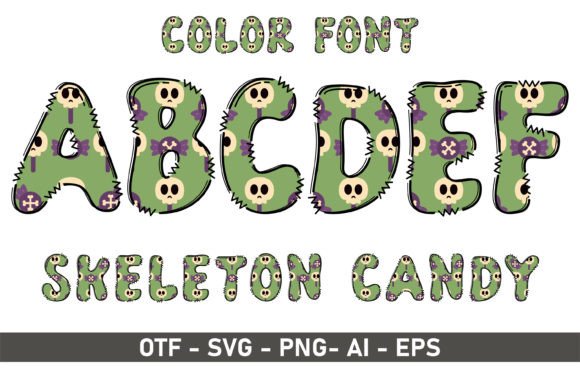
Dive into the world of Skeleton Candy Font, a captivating collection of colorful fonts that exude a playful and artistic charm. Let your creativity soar as you explore the boundless possibilities these fonts offer. Unleash your imagination and bring your designs to life with a splash of vibrancy and a touch of whimsy.
Express yourself like never before with Skeleton Candy Font's enchanting characters. Crafted with meticulous attention to detail, these fonts captivate the eye and ignite the imagination. Whether you're designing children's books, posters, invitations, greeting cards, or any project that calls for a touch of magic, Skeleton Candy Font is your perfect companion.
Immerse yourself in a symphony of colors as Skeleton Candy Font takes you on a visual journey. Its diverse color palette ignites the senses, inviting you to explore new creative horizons. Each hue tells a unique story, adding depth and dimension to your designs. Let your imagination run wild and create captivating compositions that leave a lasting impression.
Unlock the secrets of Skeleton Candy Font and elevate your designs to new heights. Its user-friendly nature makes it accessible to designers of all levels, while its versatility knows no bounds. Join the creative revolution and let Skeleton Candy Font be your muse.